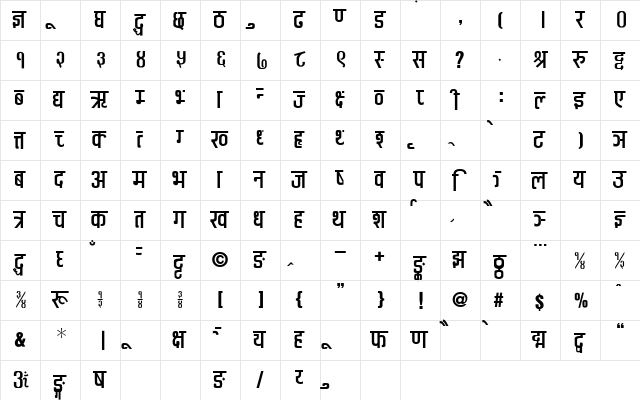
Anuradha Regular Font Preview
Anuradha Regular
Design Context for Anuradha Typeface
Anuradha is a composed and adaptable typeface that performs quietly and consistently across a wide range of design contexts.